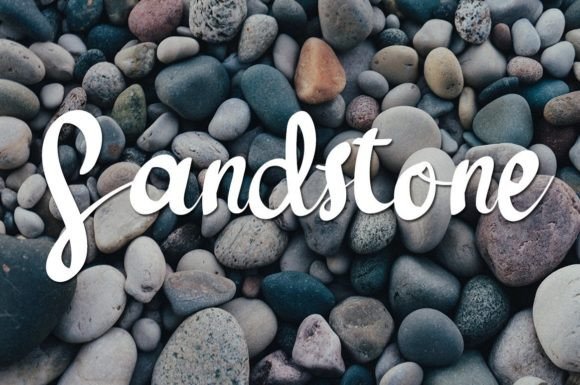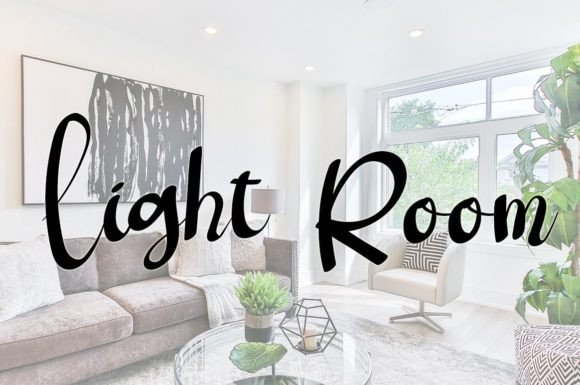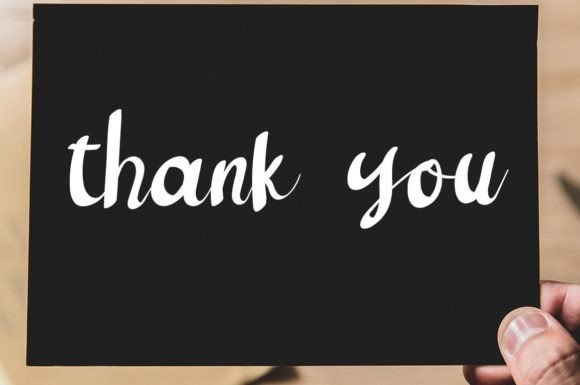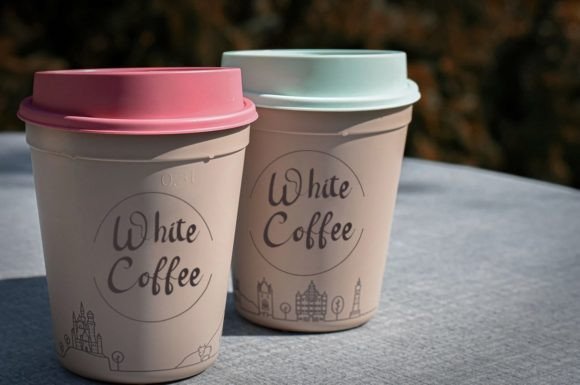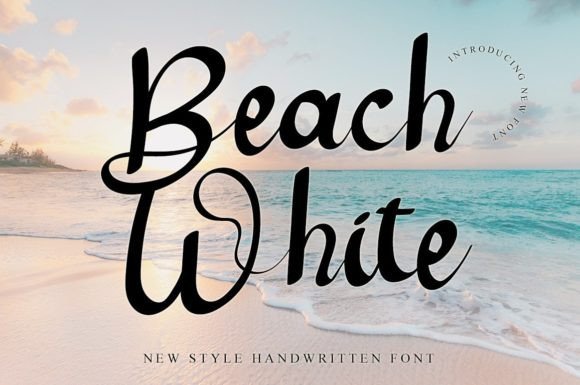
Introducing Beach White Font: Elevate Your Designs with Elegance
Are you on the hunt for a font that embodies the essence of freshness, cleanliness, and elegance? Look no further than Beach White, a stunning handwritten font that is sure to transform your designs. With its beautiful and sweet aesthetic, Beach White is the perfect addition to any project, whether formal or informal. In this article, we’ll dive into the world of Beach White Font, exploring its features, benefits, and uses, and discover why it’s a must-have for designers and crafters alike.
The Beauty of Beach White Font
Beach White Font is a masterpiece of typography, boasting a fresh, clean, and elegant design that is sure to captivate your audience. Its handwritten style exudes a sense of warmth and approachability, making it perfect for a wide range of applications, from wedding invitations and branding materials to social media graphics and website headers. The font’s unique charm lies in its ability to convey a sense of sophistication and refinement, while still feeling friendly and accessible.
Key Features of Beach White Font
- Handwritten style: Beach White Font features a beautiful, handwritten design that adds a touch of personality to any project.
- Fresh and clean: The font’s clean lines and elegant curves make it perfect for designs that require a sense of freshness and modernity.
- Elegant and sophisticated: Beach White Font’s refined aesthetic makes it suitable for formal and informal projects alike, from luxury branding to social media graphics.
- Versatile: Use Beach White Font on a wide range of designs, including invitations, headers, titles, and more.
Benefits of Using Beach White Font
So, why should you choose Beach White Font for your next project? Here are just a few benefits of using this stunning font:
- Add a touch of elegance: Beach White Font’s sophisticated design will elevate your project and add a touch of refinement.
- Stand out from the crowd: With its unique and beautiful aesthetic, Beach White Font will help your design stand out from the competition.
- Easy to read: The font’s clean lines and clear typography make it easy to read, even at small sizes.
- Time-saving: With Beach White Font, you can create stunning designs in no time, thanks to its versatility and ease of use.
Who Can Benefit from Beach White Font?
Beach White Font is perfect for a wide range of designers and crafters, including:
- Graphic designers: Add a touch of elegance to your branding materials, social media graphics, and website headers.
- Wedding planners: Create beautiful wedding invitations, programs, and decorations with Beach White Font.
- Crafters: Use Beach White Font on your handmade crafts, such as cards, gift tags, and DIY projects.
- Small business owners: Elevate your business with Beach White Font’s sophisticated and elegant design.
How to Use Beach White Font
- Experiment with sizes and colors: Find the perfect combination to match your brand’s style and aesthetic.
- Pair with other fonts: Combine Beach White Font with other fonts to create a unique and eye-catching design.
- Use on a variety of projects: From business cards to website headers, Beach White Font is versatile enough to use on a wide range of designs.
| Font Name | Beach White Font |
| Author | Slenting Art |
In conclusion, Beach White Font is a stunning handwritten font that is sure to elevate your designs and add a touch of elegance to any project. With its fresh, clean, and elegant aesthetic, Beach White Font is perfect for designers and crafters alike. Whether you’re looking to create a beautiful wedding invitation or a sophisticated branding material, Beach White Font is the perfect choice. So why wait? Download Beach White Font today and start creating stunning designs that will leave a lasting impression!